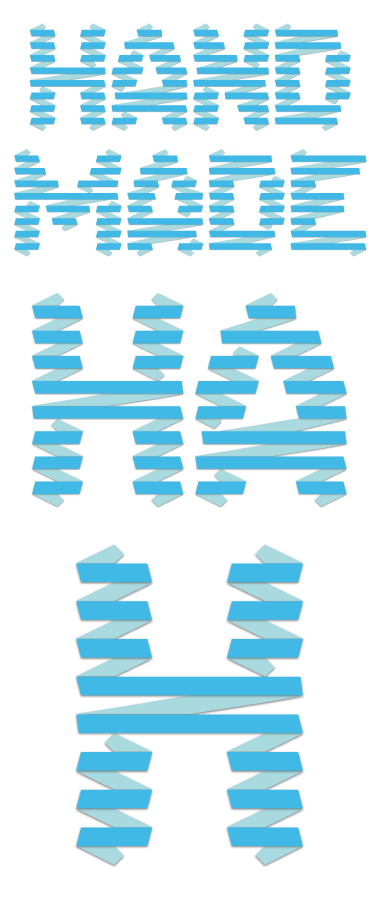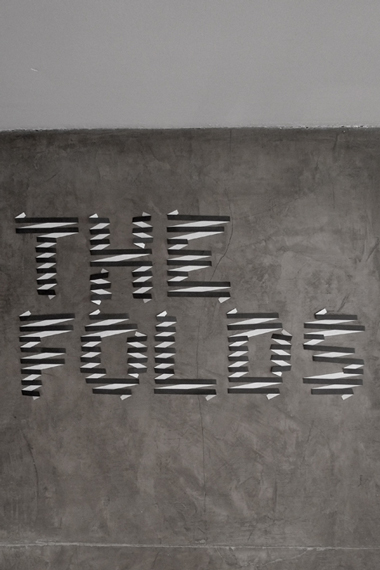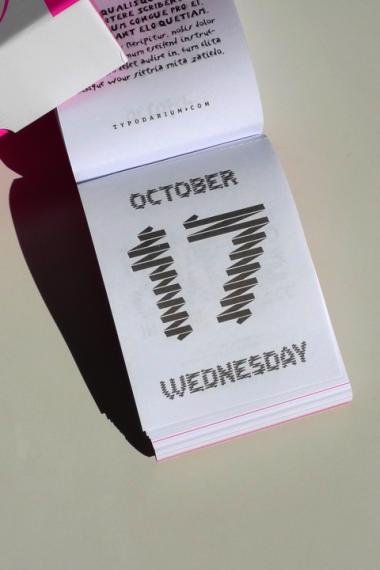
Smart use of vertical scaling to delineate the ribbon’s ‘front’ and ‘back’. This makes your beautiful, hand-colored sample possible.
The other approach, of course, would be to break the foreground and background into two layers – as two distinct fonts or a complementary upper and lowercase. Two-tone effects would be so much easier to achieve and to work with (as long as the fontmortar keeps all other metrics consistent). As well, further creative possibilities of using just one layer would be on tap.
I trust you already went down that road in some fashion, and decided instead to offer subtle alternates in the lowercase (also keeping this competition entry to just one fontstruction), allowing more varied title settings. If you are firm on this approach, maybe flip the letters that stayed the same between upper and lowercase (vertically for C, E, and I – T can be flipped horizontally – S and Z could also be alternated with a bit more effort).
Great entry with some cool details. At pixel size it has a convincingly rustic ‘plank’ effect like painted letters weathering away on an old wooden sign. The zigzags at larger size feel very ‘eighties’ to me. This might make this very popular with the kids. ;)
The vertical scaling is very small indeed (0.98), and i preferred this approach to the two layers so that the font may work standalone as well.
I tried to do the alternates as you suggested, flipping letters (or flipping the zigzag for letters such as S and Z), but as their zigzag was opposite to the main direction used in all the other letters, alternates included, it looked like the font was loosing consistency.
This mornings live page is chock full of delightful entries. It is pleasurable to no end to see such detailed and beautifully crafted letters in the previewer. The sample makes it that much more of a beauty to behold. Bravo.
@Skye-steph: the font was possible thanks to composite bricks to create the diagonal sections, and vertical scaling to create the thin horizontal gap.
nice output at small size too.
The other approach, of course, would be to break the foreground and background into two layers – as two distinct fonts or a complementary upper and lowercase. Two-tone effects would be so much easier to achieve and to work with (as long as the fontmortar keeps all other metrics consistent). As well, further creative possibilities of using just one layer would be on tap.
I trust you already went down that road in some fashion, and decided instead to offer subtle alternates in the lowercase (also keeping this competition entry to just one fontstruction), allowing more varied title settings. If you are firm on this approach, maybe flip the letters that stayed the same between upper and lowercase (vertically for C, E, and I – T can be flipped horizontally – S and Z could also be alternated with a bit more effort).
Great entry with some cool details. At pixel size it has a convincingly rustic ‘plank’ effect like painted letters weathering away on an old wooden sign. The zigzags at larger size feel very ‘eighties’ to me. This might make this very popular with the kids. ;)
I like the way it renders at pixel size as well.
The vertical scaling is very small indeed (0.98), and i preferred this approach to the two layers so that the font may work standalone as well.
I tried to do the alternates as you suggested, flipping letters (or flipping the zigzag for letters such as S and Z), but as their zigzag was opposite to the main direction used in all the other letters, alternates included, it looked like the font was loosing consistency.
@Skye-steph: the font was possible thanks to composite bricks to create the diagonal sections, and vertical scaling to create the thin horizontal gap.
You need to remake this in color ;)